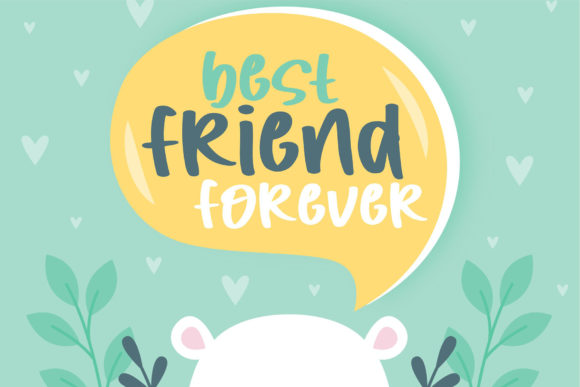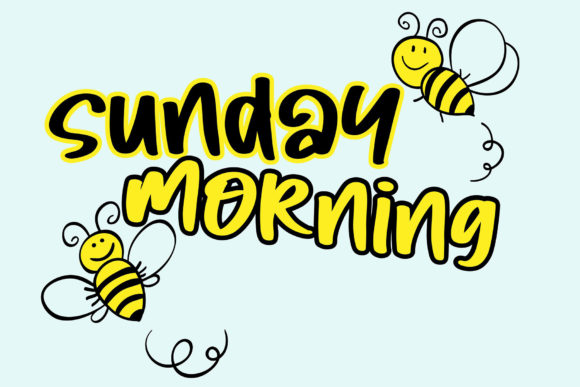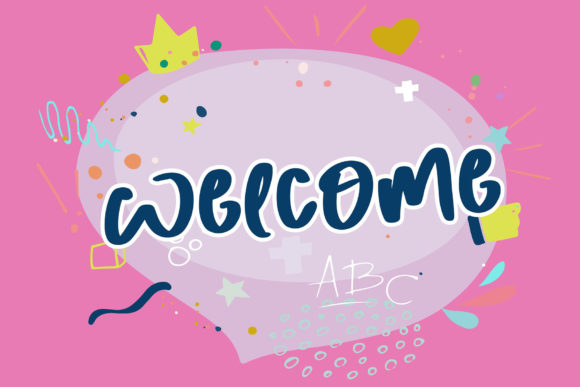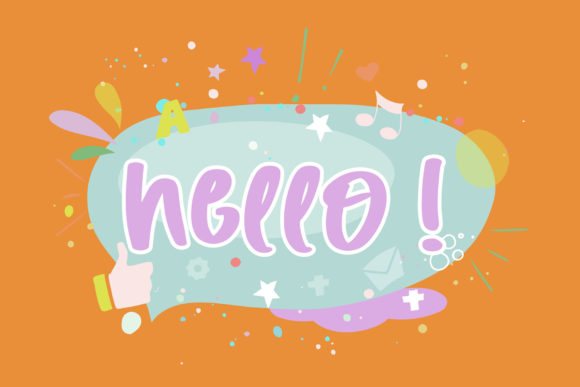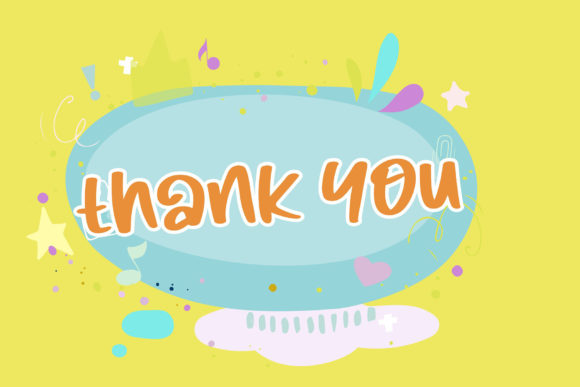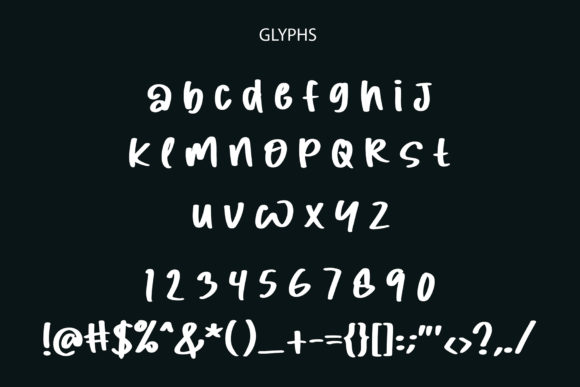
Introducing Beebear Font: The Playful and Lovable Display Font for Your Creative Projects
Are you a designer, crafter, or DIY enthusiast looking for a font that can add a touch of playfulness and personality to your projects? Look no further than Beebear Font, a charming display font that’s perfect for creating eye-catching posters, cards, logos, prints, and more. With its chunky letters and handwritten, authentic style, Beebear Font is sure to become your new go-to font for all your creative endeavors.
What Makes Beebear Font So Special?
Beebear Font is a unique and lovable font that’s designed to bring a smile to your face. Its chunky letters have a delightful, hand-crafted feel that’s reminiscent of handwritten signs and posters from a bygone era. Whether you’re creating a vintage-inspired poster, a handmade card, or a logo for your small business, Beebear Font is the perfect choice.
One of the things that sets Beebear Font apart from other fonts is its authentic, handwritten style. Unlike other display fonts that can look cold and impersonal, Beebear Font has a warm, human touch that’s sure to resonate with your audience. Whether you’re a professional designer or a DIY enthusiast, Beebear Font is a great way to add some personality and whimsy to your projects.
Uses for Beebear Font
Beebear Font is a versatile font that can be used for a wide range of creative projects. Here are just a few ideas to get you started:
- Posters: Create eye-catching posters for events, promotions, or announcements using Beebear Font. Its chunky letters and playful style make it perfect for grabbing attention and conveying your message.
- Cards: Add a personal touch to your handmade cards using Beebear Font. Whether you’re creating birthday cards, thank-you cards, or holiday cards, Beebear Font is a great way to add some personality and whimsy.
- Logos: Use Beebear Font to create a logo for your small business or personal brand. Its unique and memorable style makes it perfect for standing out from the crowd and establishing your brand identity.
- Prints: Create beautiful prints and artwork using Beebear Font. Whether you’re creating inspirational quotes, fun illustrations, or decorative art, Beebear Font is a great way to add some visual interest and personality.
Why Designers and Crafters Love Beebear Font
Beebear Font has quickly become a favorite among designers and crafters, and it’s easy to see why. Here are just a few reasons why Beebear Font is a must-have for any creative:
- Easy to read: Despite its chunky style, Beebear Font is surprisingly easy to read. This makes it perfect for creating posters, signs, and other materials that need to be legible from a distance.
- Versatile: Beebear Font can be used for a wide range of creative projects, from posters and cards to logos and prints.
- Unique: Beebear Font has a unique and memorable style that’s sure to stand out from the crowd. Whether you’re creating a poster, logo, or print, Beebear Font is a great way to add some personality and whimsy.
- Authentic: Beebear Font has an authentic, handwritten style that’s perfect for creating materials that look handmade or vintage-inspired.